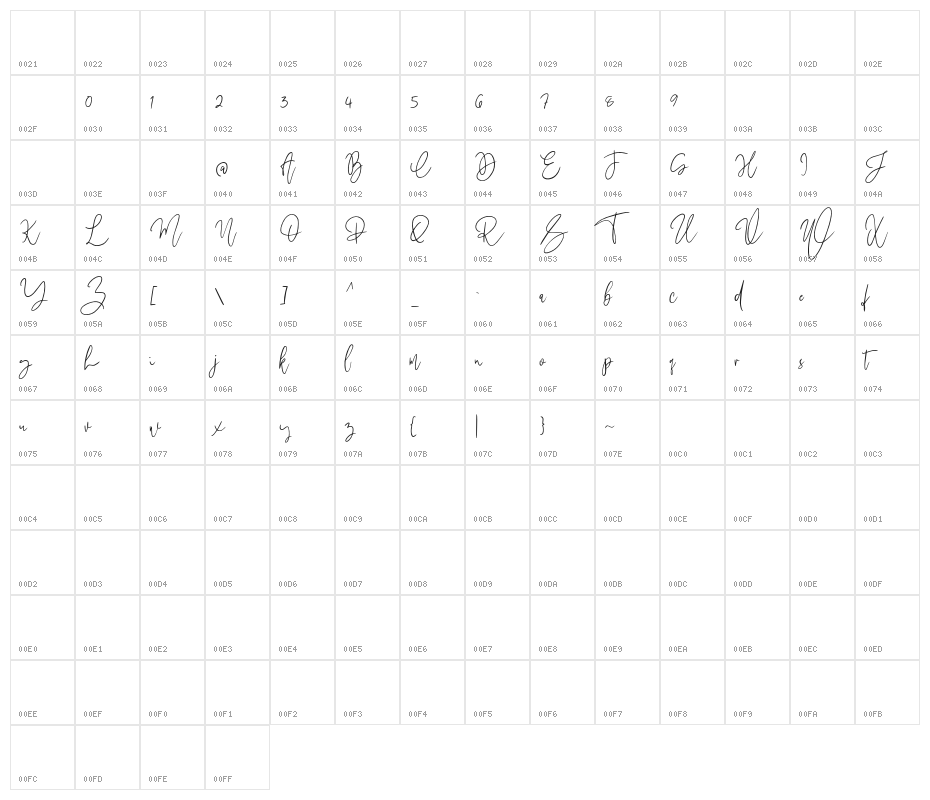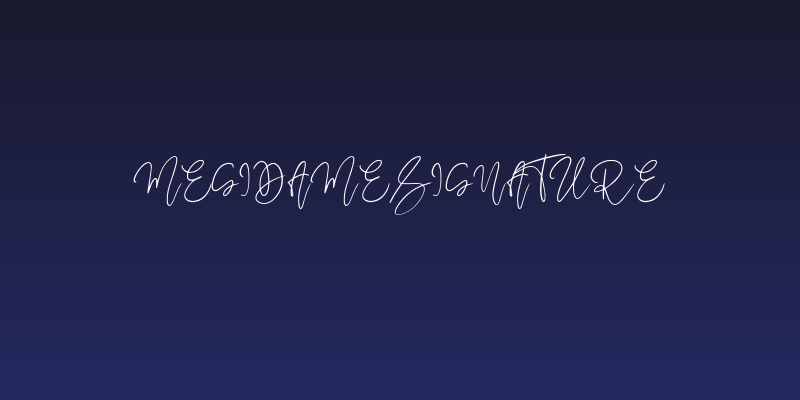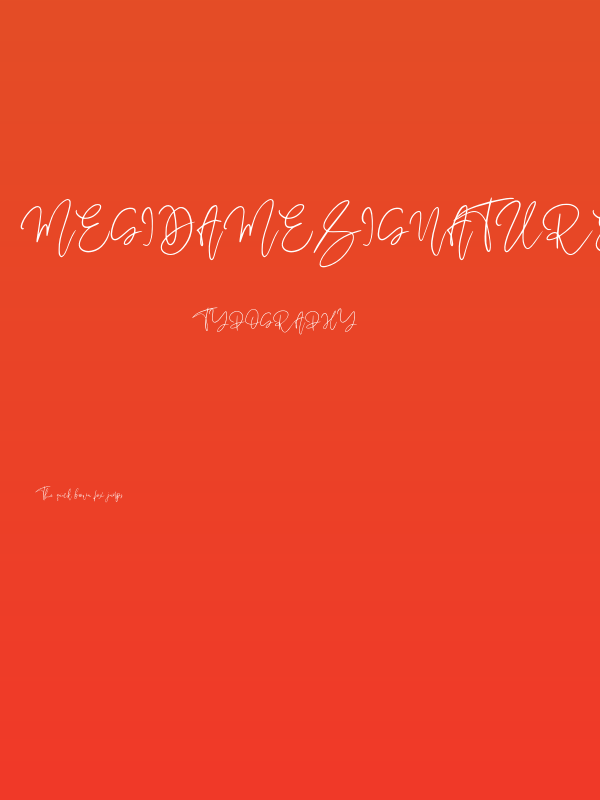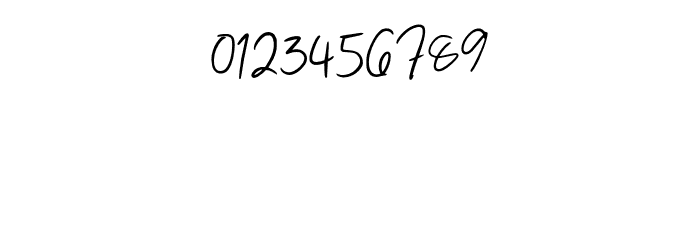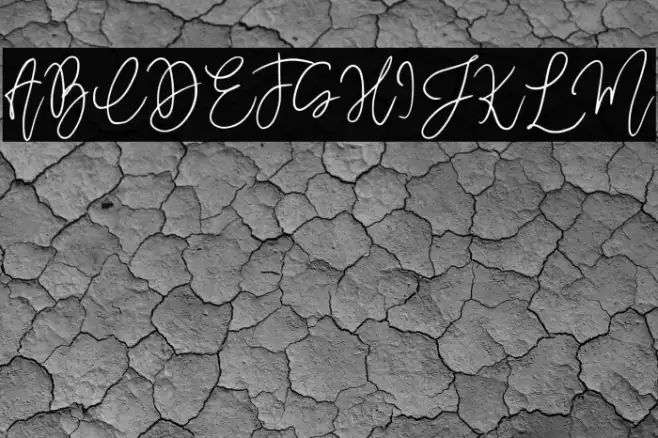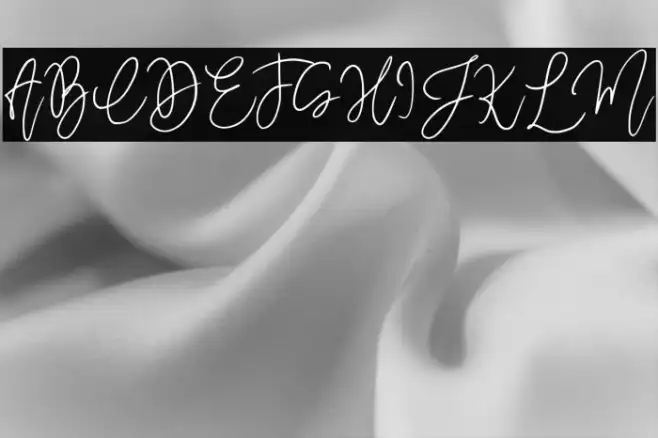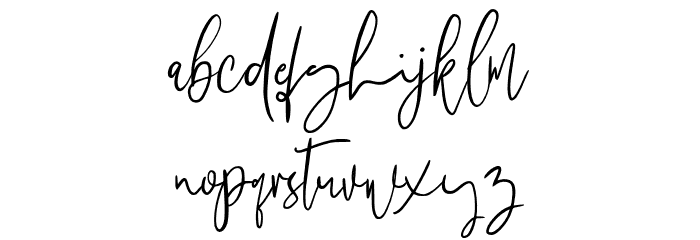
MegidameSignature Font
MegidameSignature Description
This font exudes elegance and fluidity, characterized by its cursive, handwritten style. The letters are interconnected with smooth, flowing strokes that mimic the natural movement of a pen. The uppercase letters are slightly more elaborate, with loops and swirls that add a touch of sophistication. The lowercase letters maintain a consistent style, with a slightly more relaxed and casual appearance. The numbers are clear and legible, maintaining the same flowing style. This font is perfect for projects that require a personal touch, such as invitations, greeting cards, or branding materials. Its unique style makes it stand out, while still being easy to read.
| Overall Style | Elegant, Personal |
| Proposed Projects | Ideal for invitations, greeting cards, branding, and personal projects. |